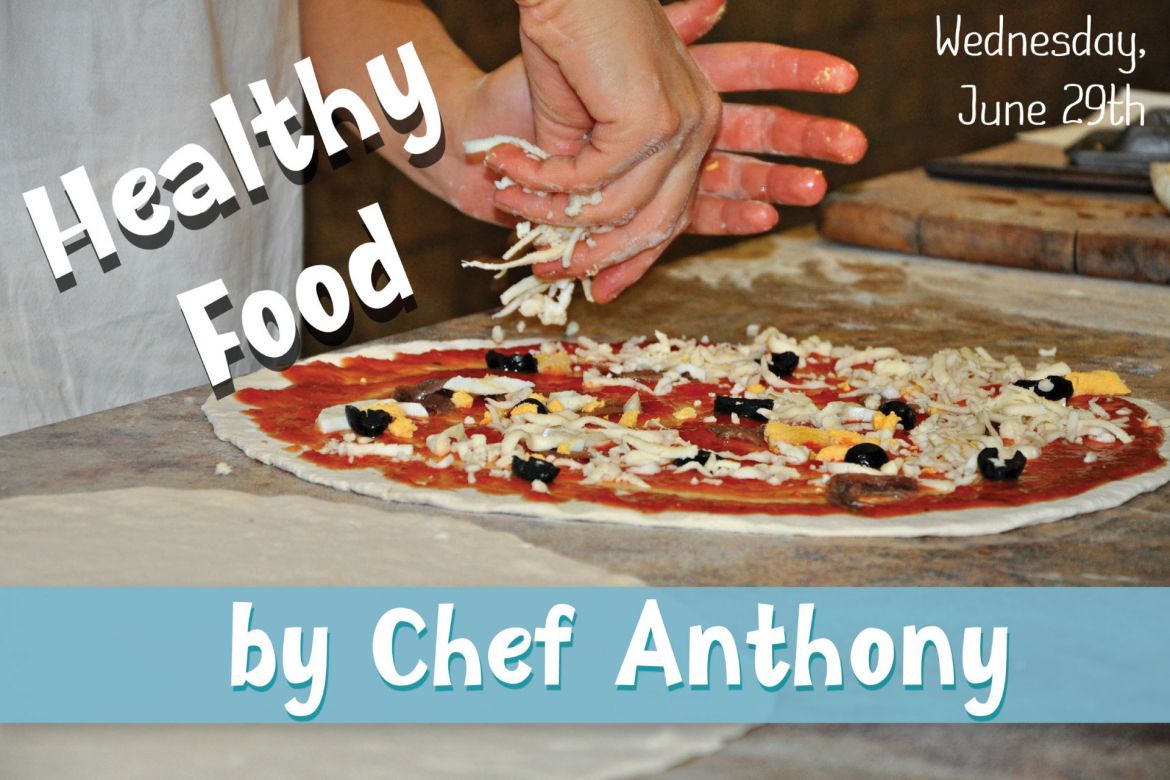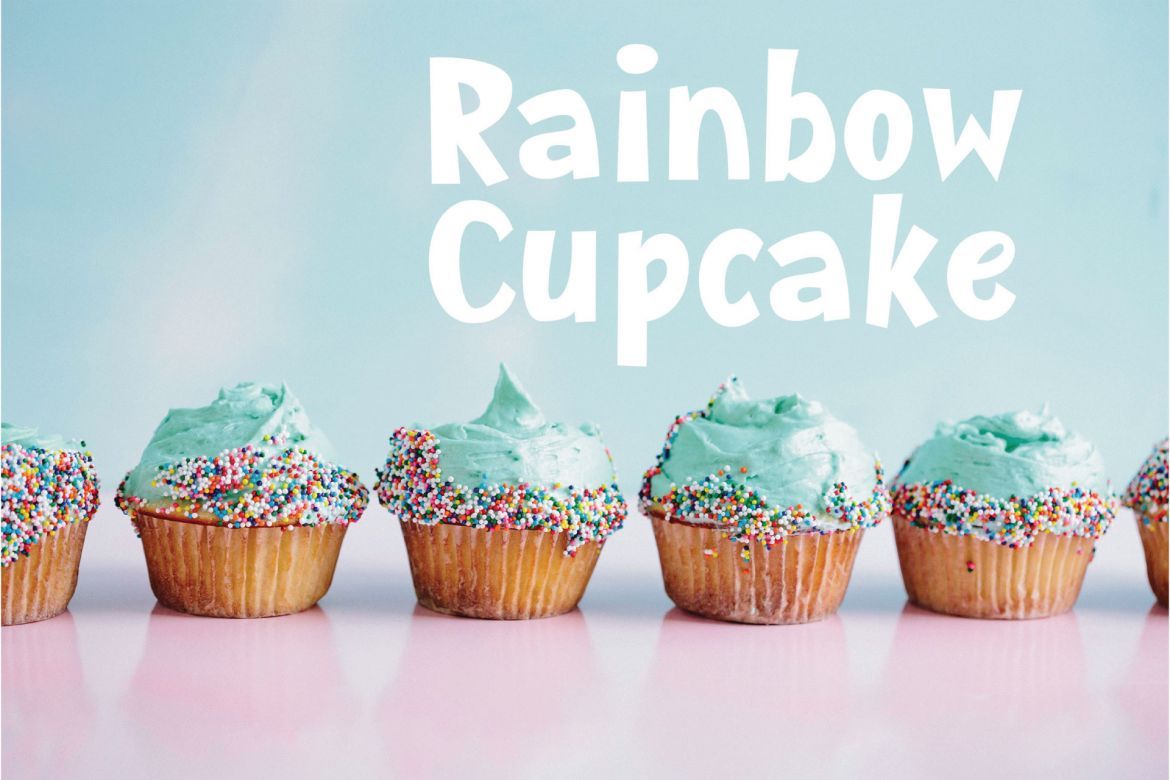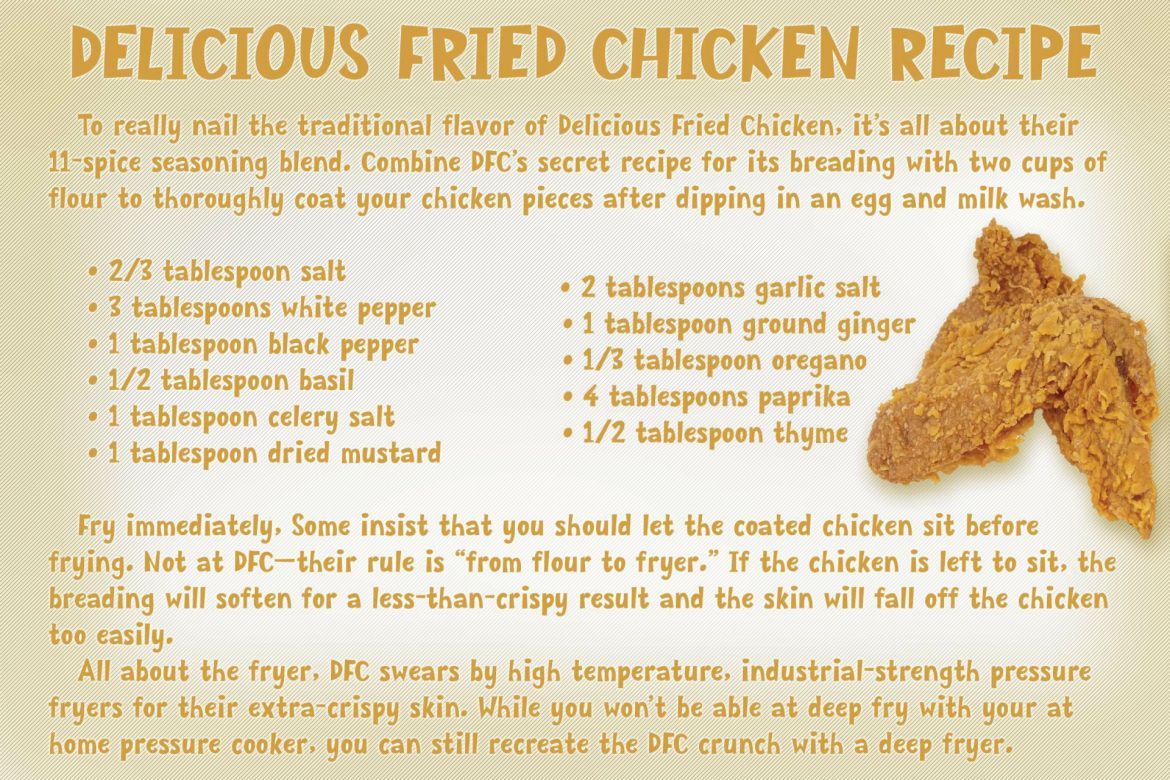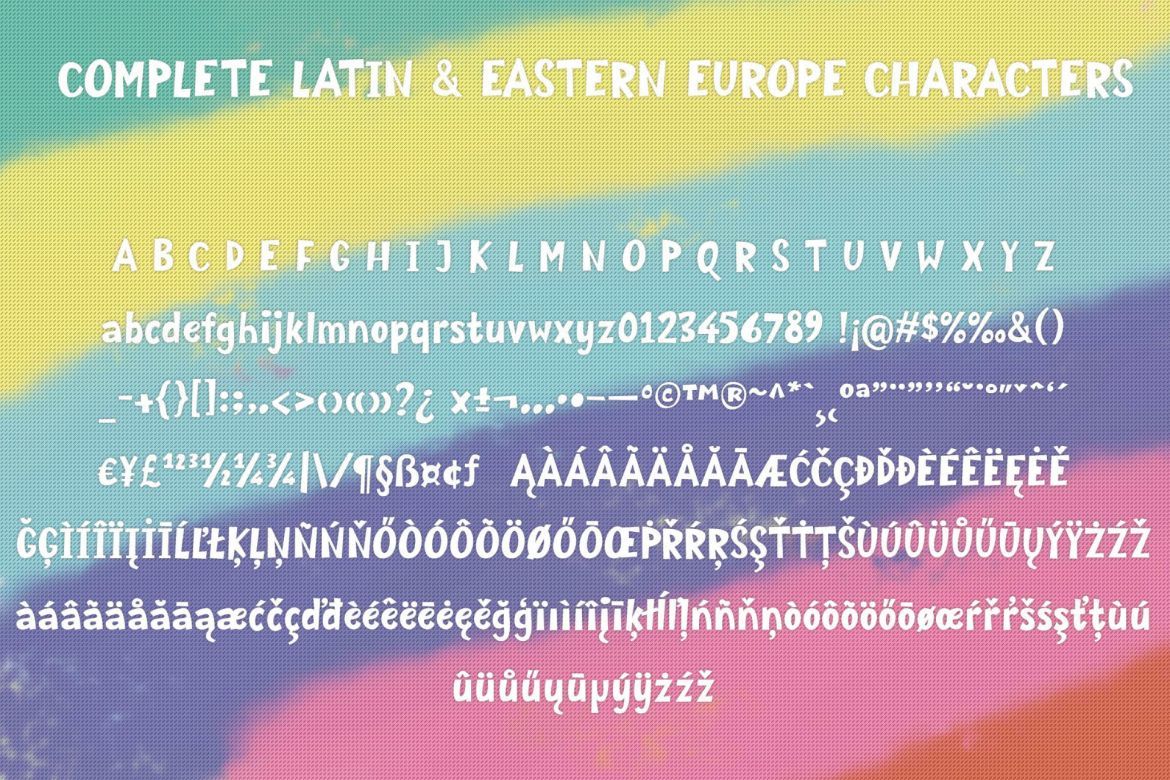
Mozzarella Comic Font
Introducing a new cute bold comic font. All node was cleaned in fairly natural shape. This font will nice for logo, title, subtitle,T-shirt, Mug, flyer, book, magazine, etc.
Font Features:
• Have 335 glyphs, supported to all Latin and Eastern Europe characters.
• Alternate characters for each uppercase characters.
• alternate characters for each uppercase characters
• have 335 glyphs, supported to all latin and eastern europe characters